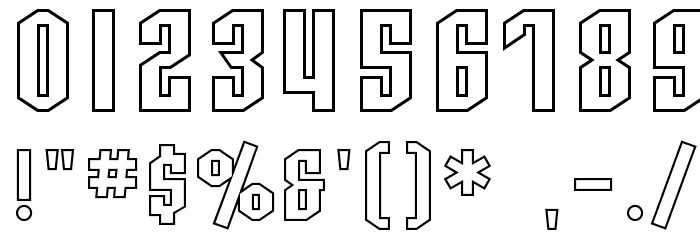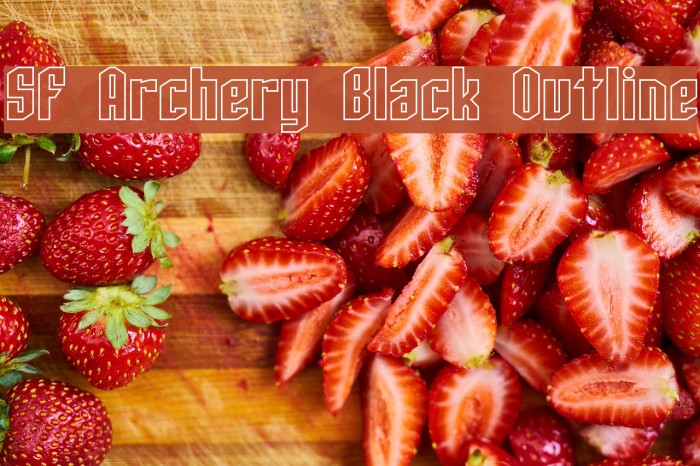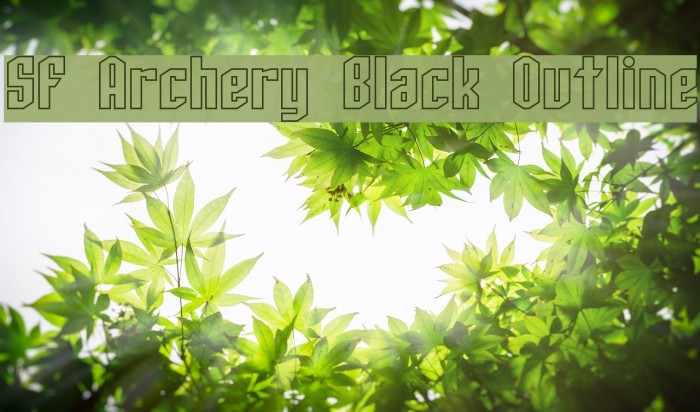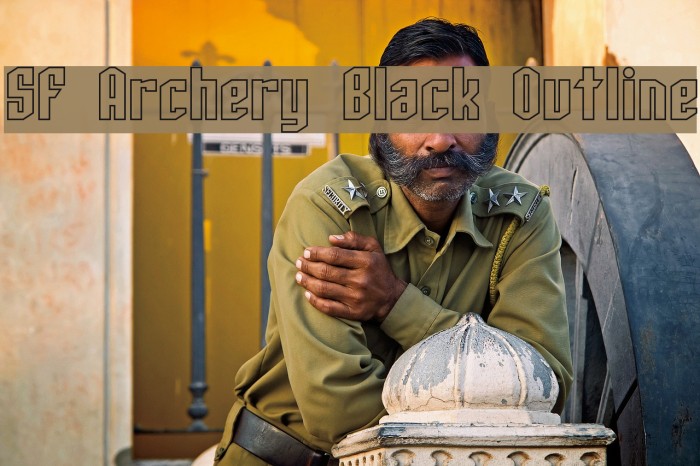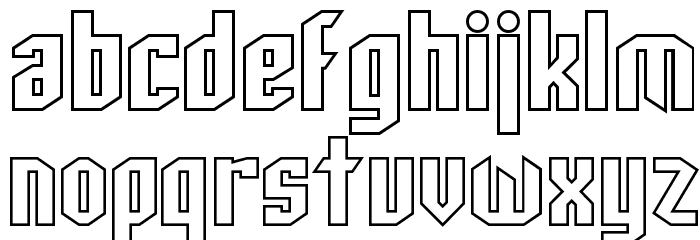
SF Archery Black Outline Font
SF Archery Black Outline Description
This font features a bold, geometric design with a distinct outline style, giving it a striking and modern appearance. The characters are constructed with sharp angles and clean lines, creating a sense of precision and structure. The uppercase and lowercase letters maintain a consistent height, while the numerals and special characters are designed to complement the overall aesthetic. The outlined nature of the font adds a layer of depth, making it ideal for eye-catching displays. Its unique style is both futuristic and retro, offering versatility in various design contexts.
| Proposed Projects | Ideal for branding, posters, headlines, and any project requiring a bold, modern look. |